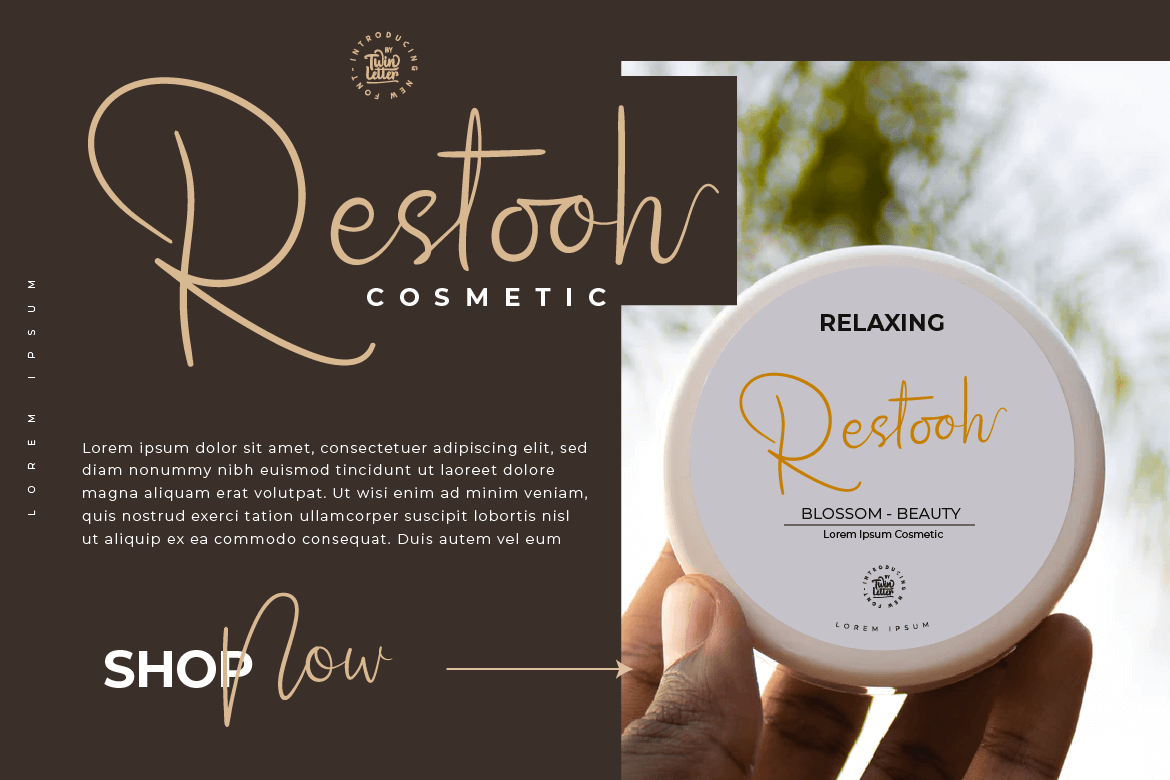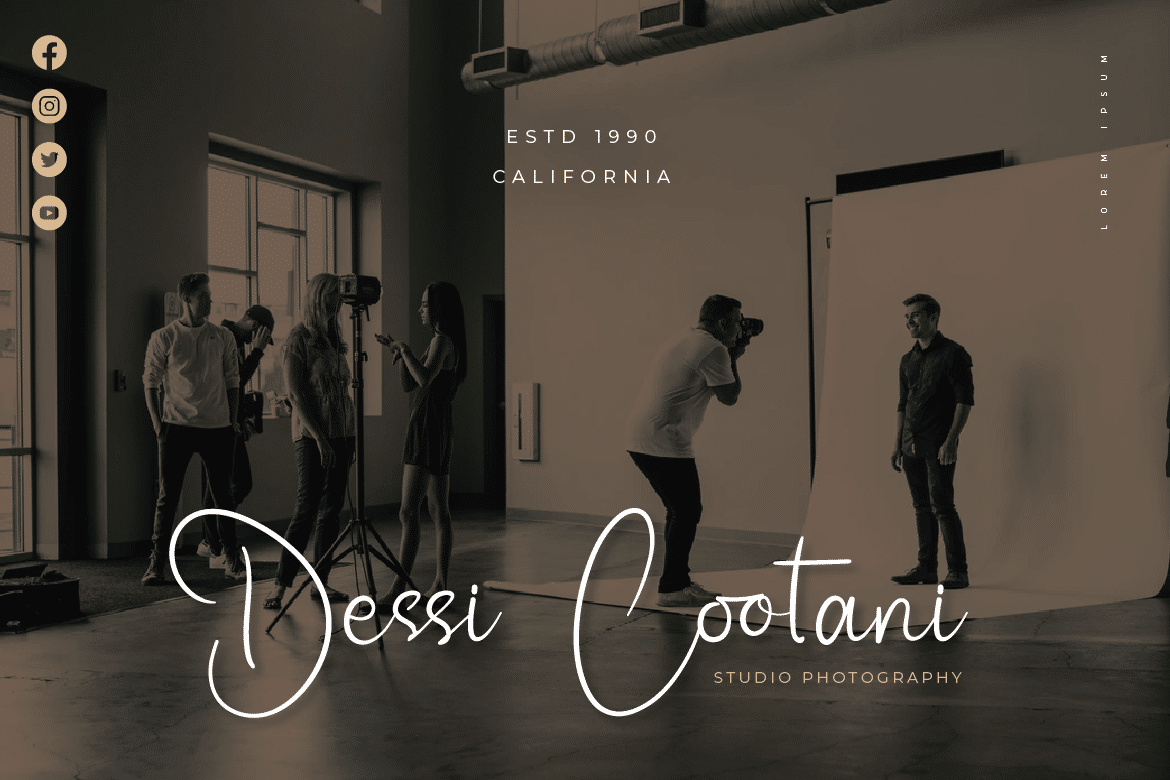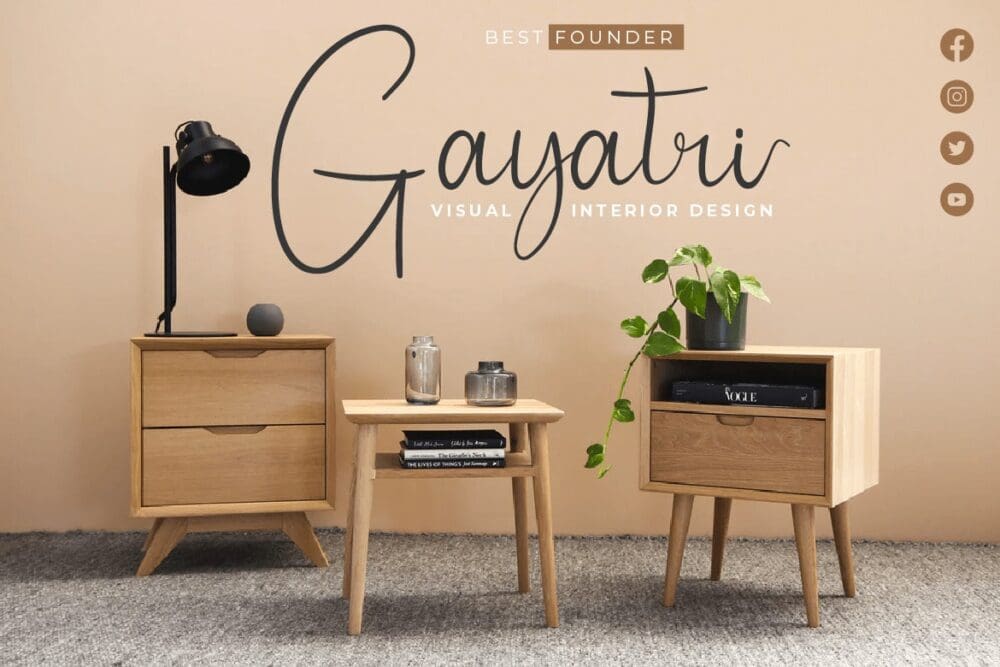
Nettally Font
Nettally is a lovely Signature Font with a delicate and feminine vibe about it. This typeface gives off a sense of elegance, simplicity, and charm. Please feel free to use this typeface in your own project.